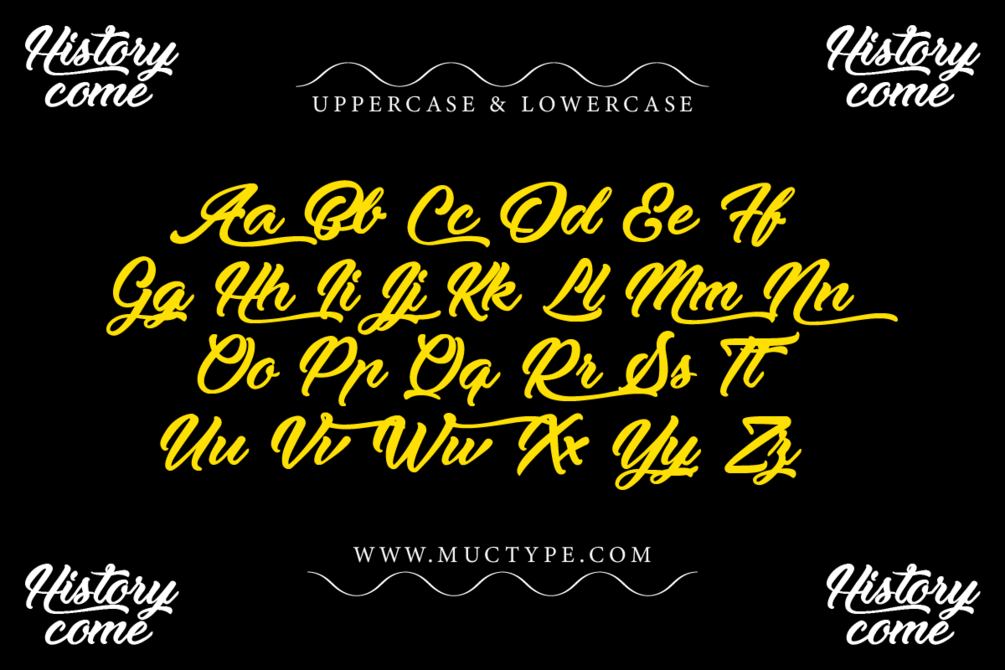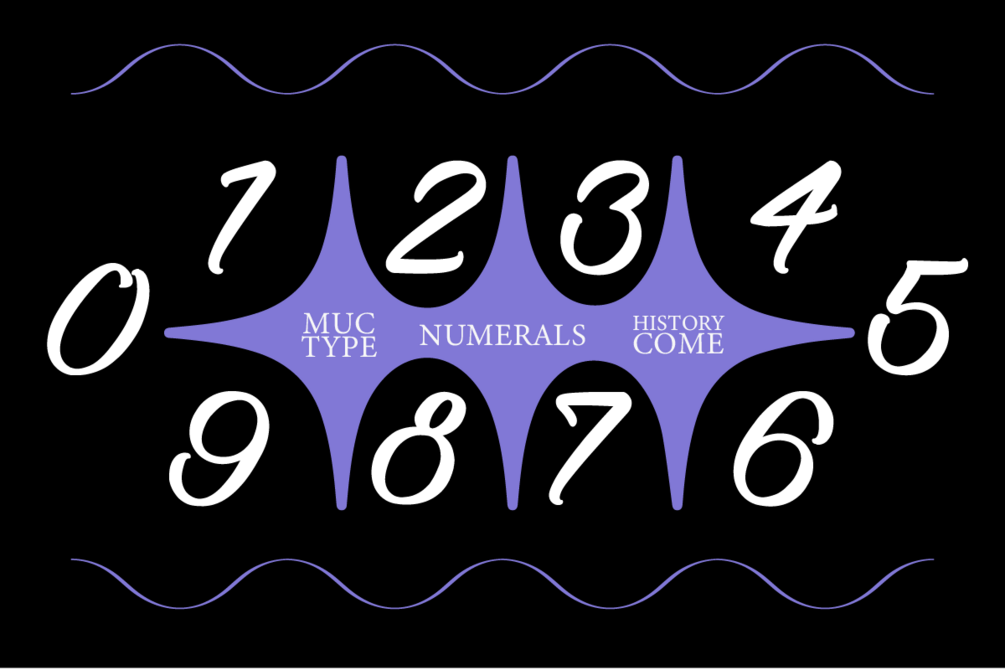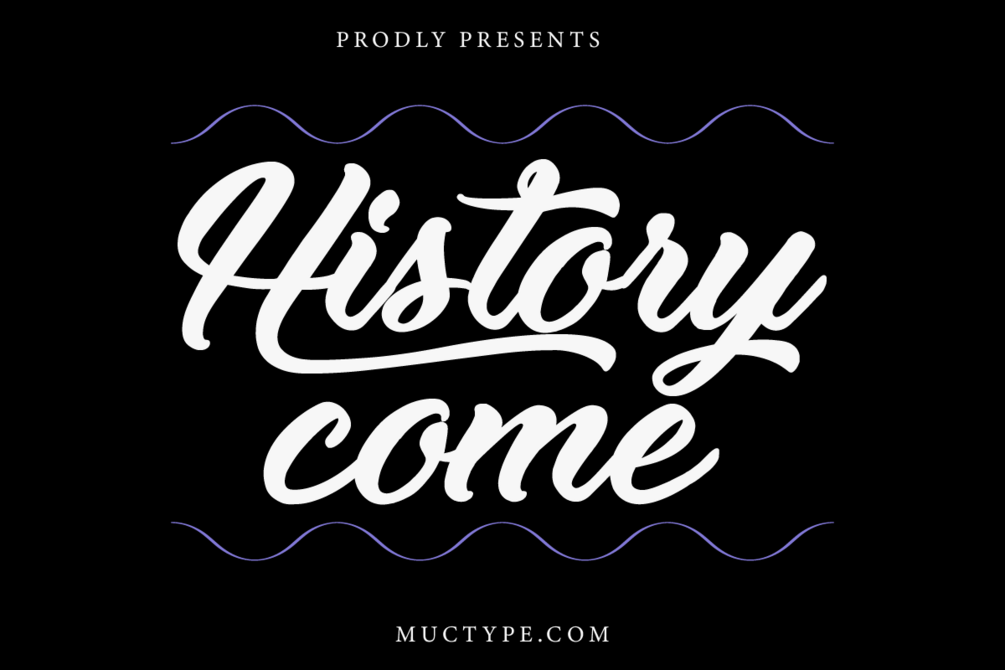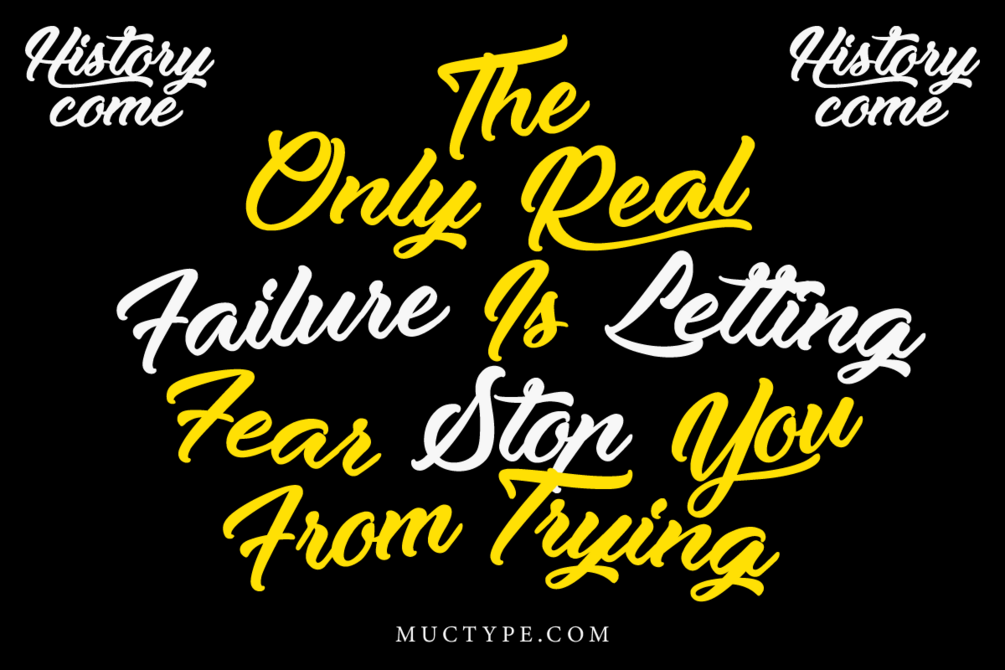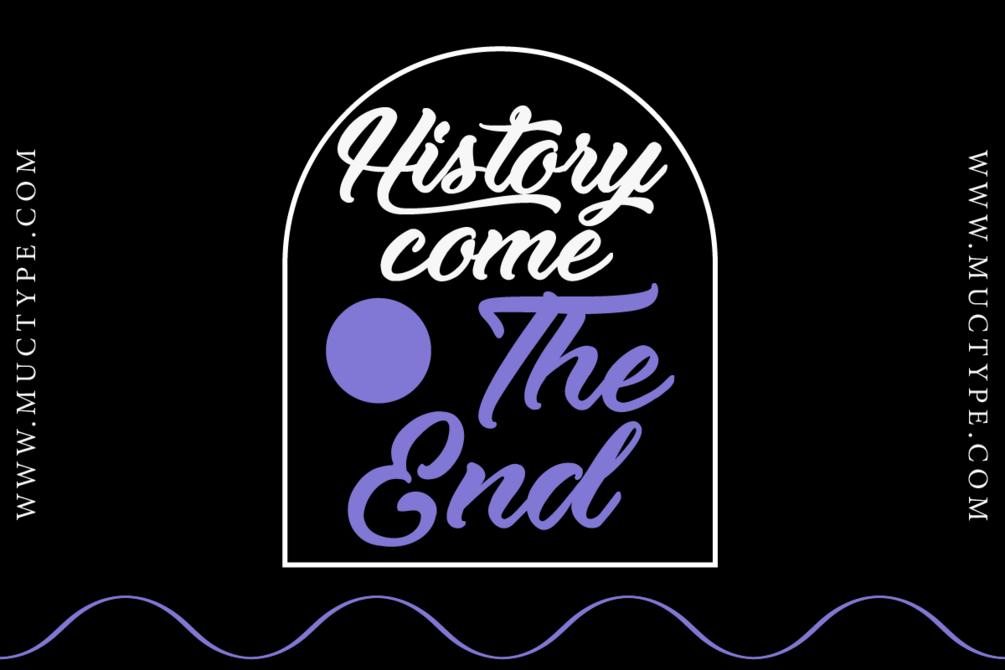
History Come – Bold Handwritten Brush Script Font
History Come is a bold handwritten brush script font designed for powerful typography, vintage branding, streetwear, posters, quotes, logos, social media, packaging, and modern creative projects.
This font features smooth curves, expressive strokes, and a strong hand-drawn personality, making it perfect for eye-catching headlines, motivational quotes, branding identities, apparel designs, and digital artwork.
Its energetic and stylish look delivers a bold statement while maintaining elegance and readability across print and digital platforms.